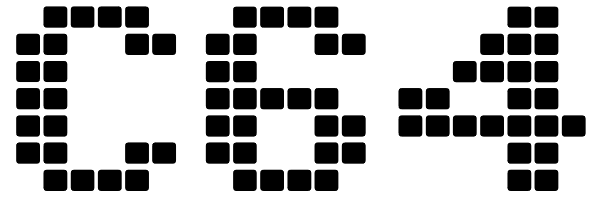
C64
The Commodore 64 (C64) is a home computer with 64 kilobytes of RAM that was popular in the 1980s. Released by Commodore Business Machines (CBM) to the public in August 1982 at a price of US$595, it offered sound and graphics performance that was...